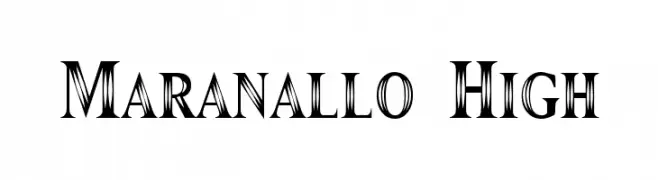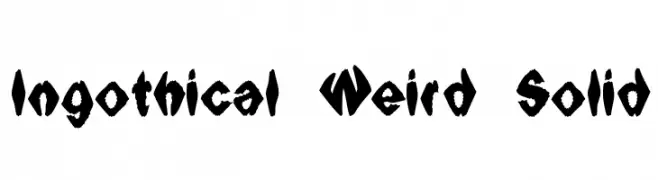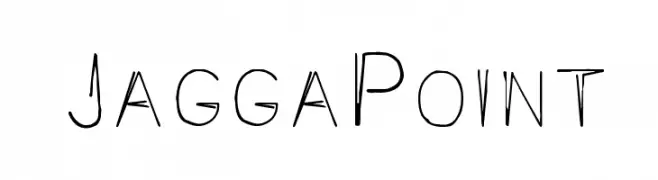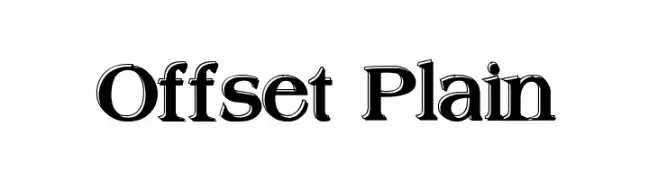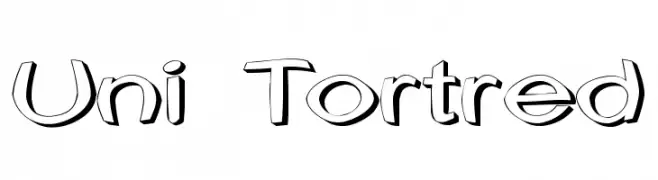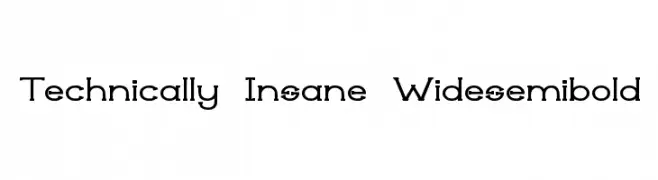
A bold, distressed font with jagged edges and a torn appearance.
A bold, high-contrast serif font with sharp serifs and vintage flair.
A bold, gothic-inspired font with sharp, abstract shapes.
An edgy, angular font with sharp, jagged strokes and a dynamic, chaotic style.
A playful, hand-drawn font with irregular strokes and artistic flair.
A bold, three-dimensional font with strong shadowing effects.
A whimsical, thin font with decorative curls and a hand-drawn style.
A bold, playful font with thick, rounded strokes and a whimsical style.
A playful, 3D-effect font with bold, rounded characters and a whimsical style.
A bold, wide font with a modern, geometric style.